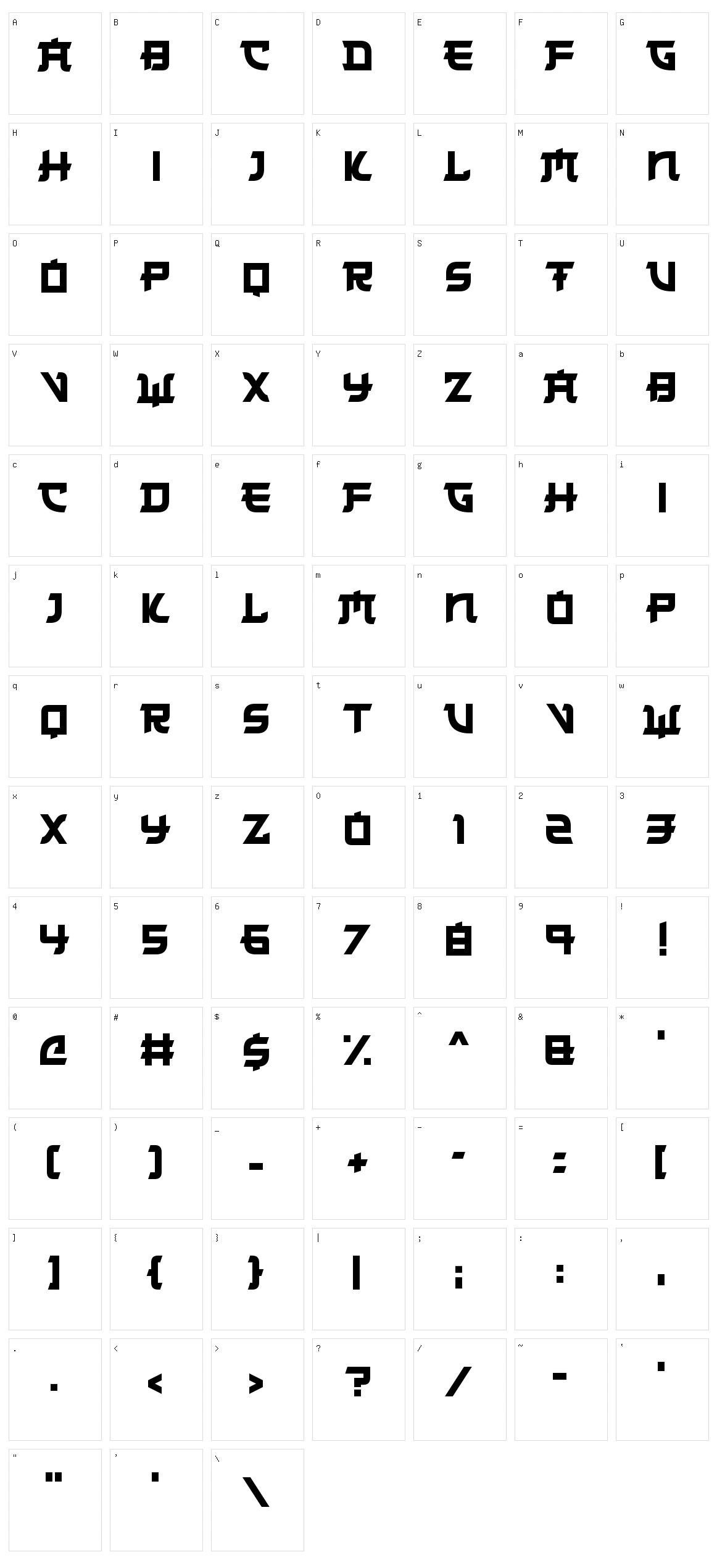
The free font Japanese 2020 is carefully designed by Hawtpixel, showcasing a thoughtful balance of creativity and usability and falls under the Asian font style. When you download the ZIP file, it contains only 47.73 KB of font files, making it lightweight and quick to download. Please review the license details below to understand permitted usage and distribution rights. If license information is not available, we recommend using this font for personal projects only or contacting the author directly for commercial usage permissions.